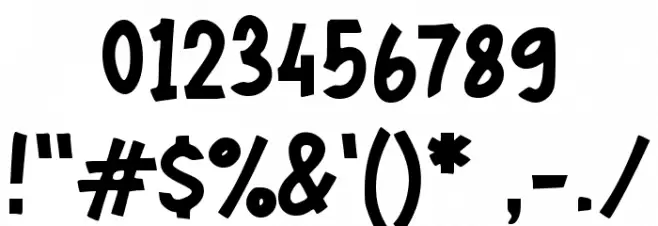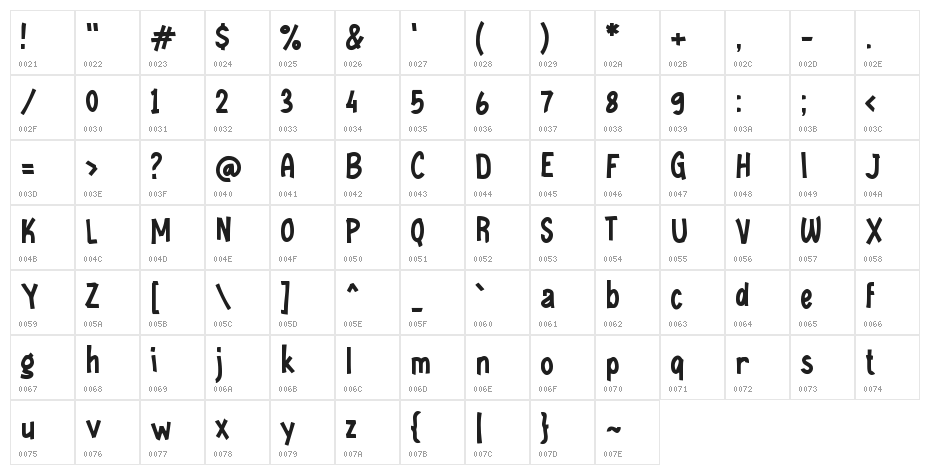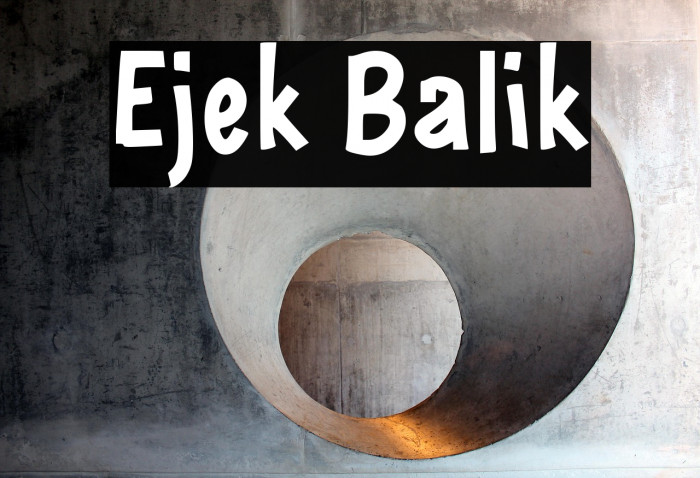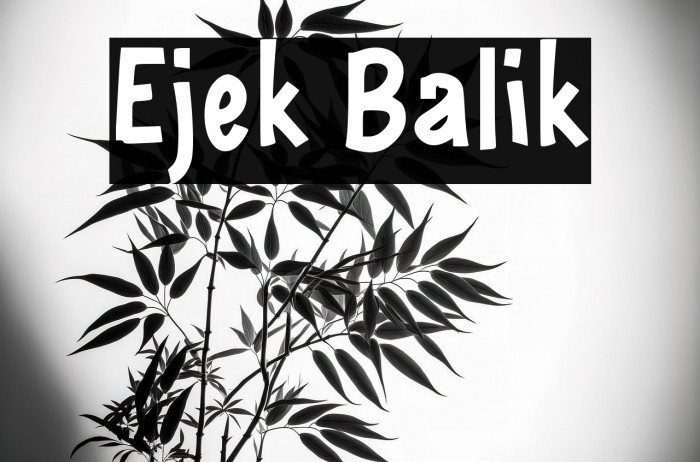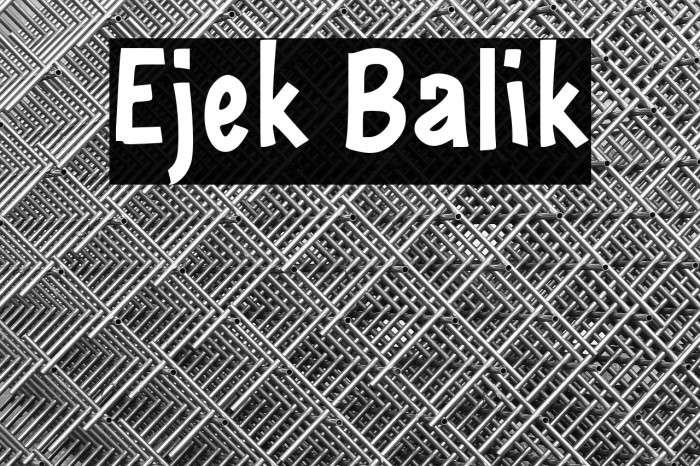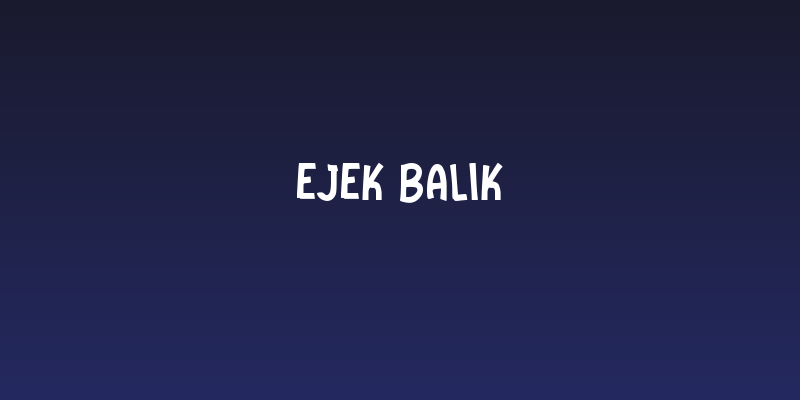
Ejek Balik Font
Ejek Balik Description
This playful and bold font features a hand-drawn style with irregular, slightly wavy lines that give it a whimsical and informal appearance. The uppercase and lowercase letters are distinct, with a quirky charm that adds personality to any text. The numbers and special characters maintain the same lively aesthetic, making it suitable for creative and fun projects. The strokes are consistent in thickness, providing a uniform look across all characters. Its unique style is eye-catching and memorable, perfect for making a statement.
| Proposed Projects | Ideal for children's books, playful branding, posters, and creative invitations. |